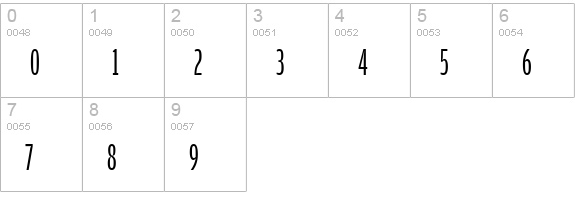
AmplitudeExtraComp-Book Font Details
AmplitudeExtraComp-Book is a comfortable, highly readable variant in the AmplitudeExtraComp typeface family \xE2\x80\x94 well suited to long-form body text, articles, and editorial content.
AmplitudeExtraComp-Book is a versatile and modern typeface that exudes elegance and sophistication. With its clean lines and balanced proportions, this font is perfect for a wide range of design projects, from branding to editorial layouts. The subtle details and unique character of AmplitudeExtraComp-Book make it a standout choice for anyone looking to elevate their typography game. The best part? AmplitudeExtraComp-Book is available for free download at FontsMarket.com. Now you can enjoy the beauty and functionality of this stunning font without any cost. Whether you're a seasoned designer or just starting out, AmplitudeExtraComp-Book is sure to become a staple in your font library. Download it today and see the difference it can make in your next project.